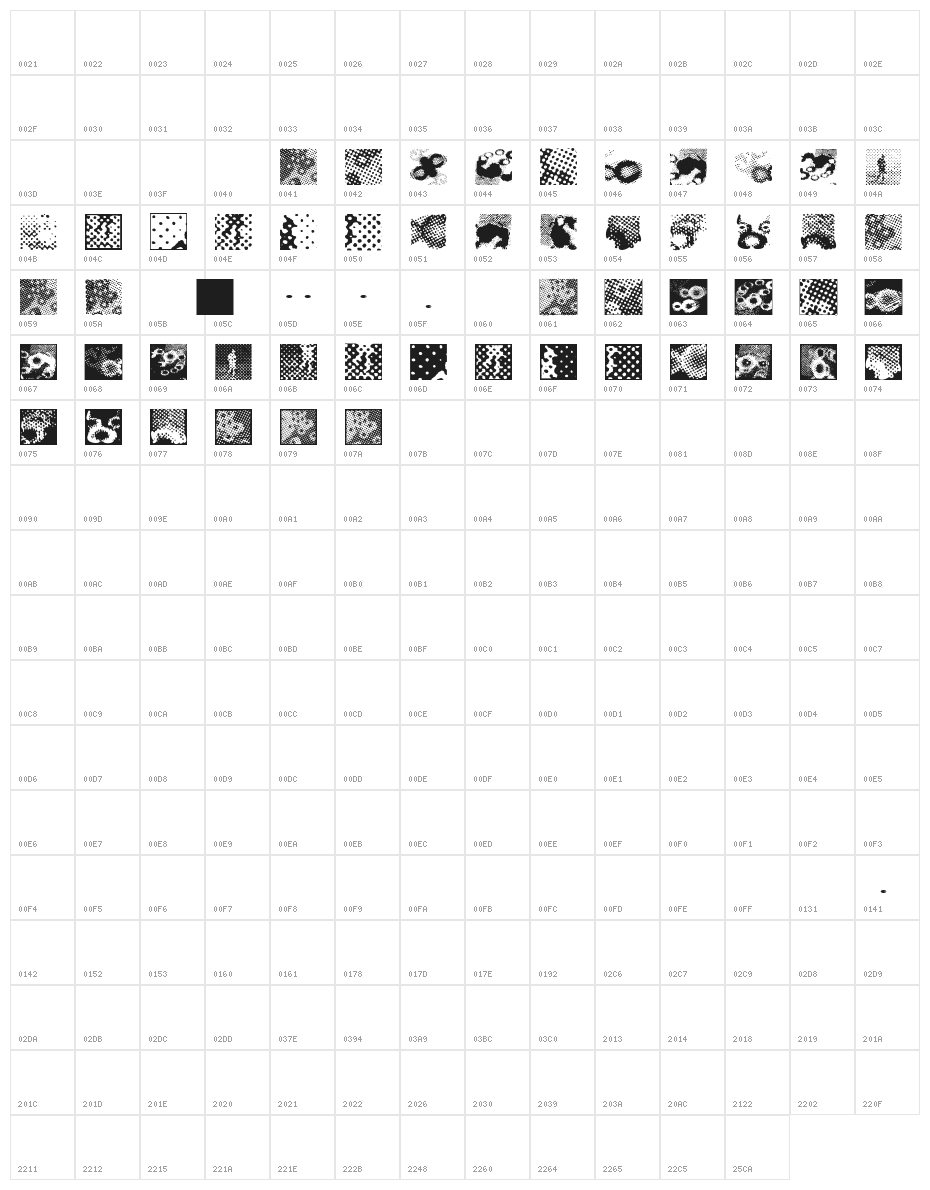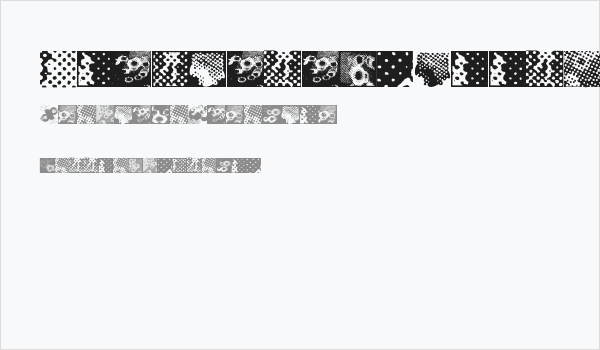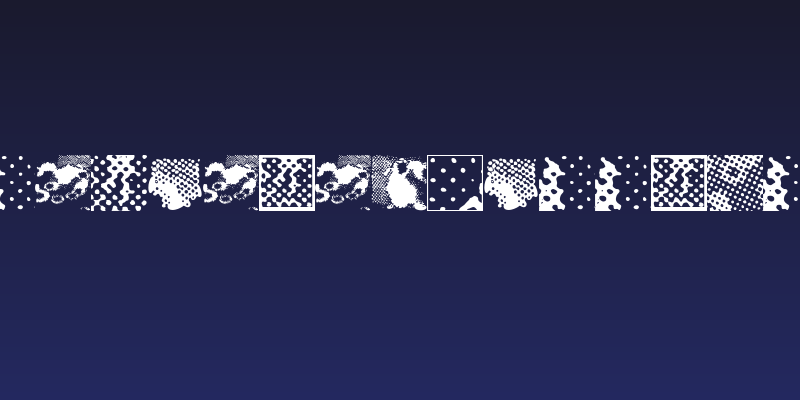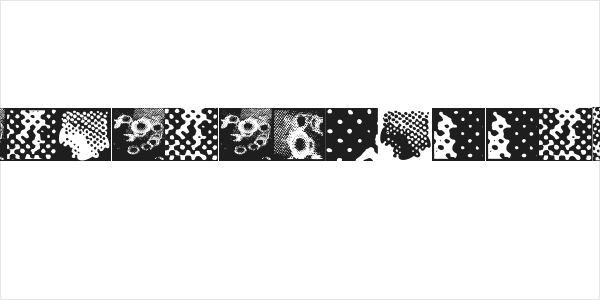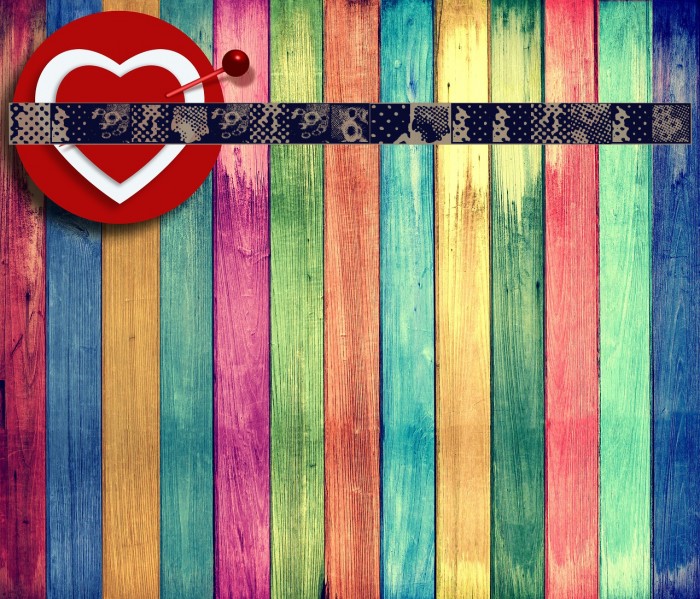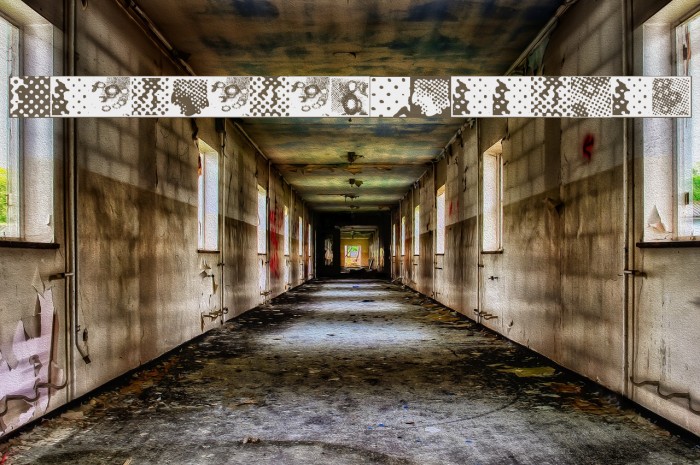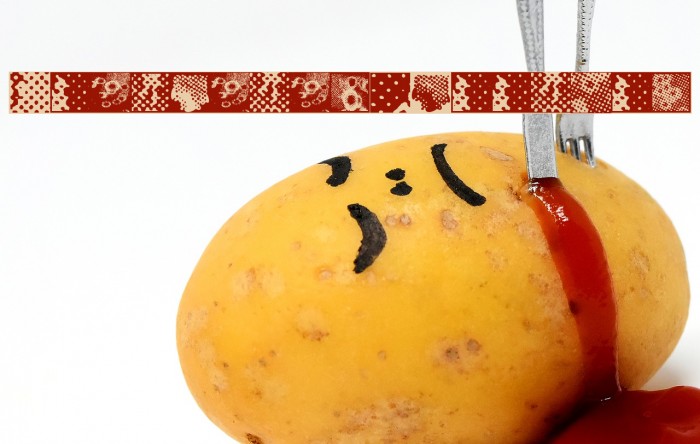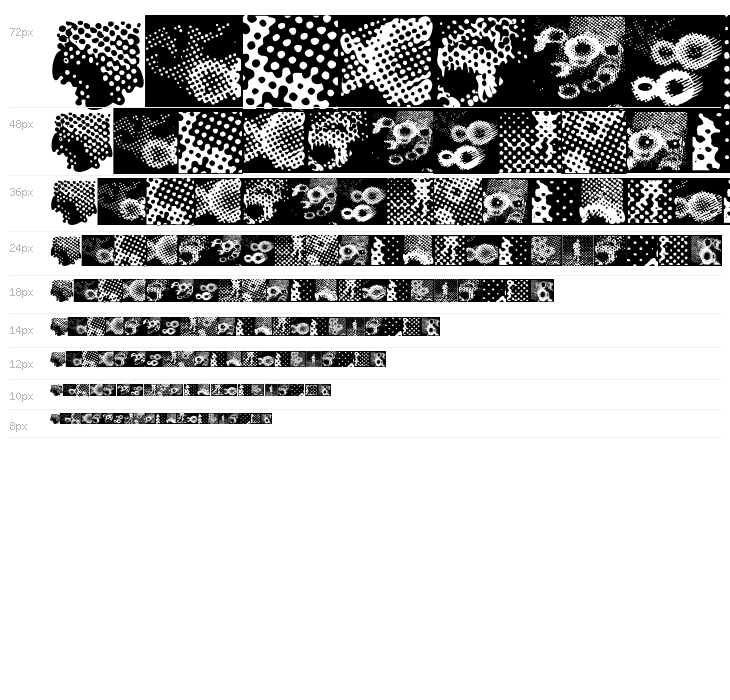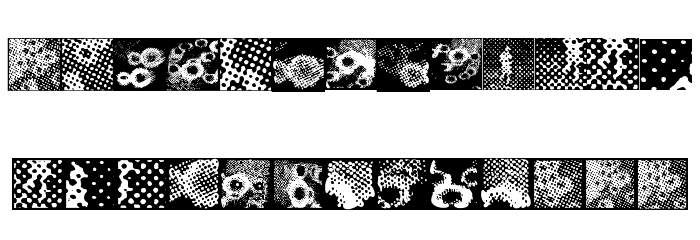
Pointilism-Toolbox Font
Pointilism-Toolbox Description
This is not a valid font. The image appears to contain a series of abstract patterns or textures rather than a traditional alphabet or set of characters. Each segment is filled with intricate dot patterns, reminiscent of pointillism art, but does not form recognizable letters or numbers.
| Overall Style | Abstract |
| Use Case | Artistic designs, Textures, Backgrounds |
| Proposed Projects | This pattern set could be used for artistic projects, backgrounds, or texture overlays. |